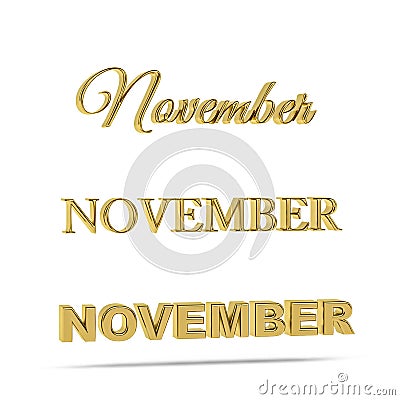
Golden 3D November Title In Three Font Types - Three Dimensional Day Of The Week On White Background - Copy Space Stock Photo
Golden 3D November title in three font types - three dimensional day of the week on white background - copy space #238919448
Golden 3D November title in three font types - three dimensional day of the week on white background - 3d render - copy space